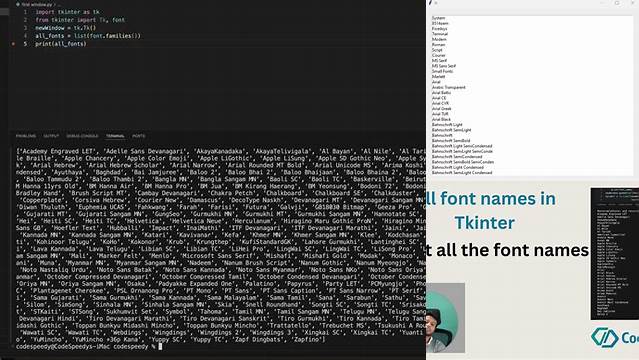
Tkinter Fonts: List, Use, And Customize For Your GUI
Hey guys! Ever wondered how to spice up your Tkinter applications with different fonts? You've come to the right place! In this comprehensive guide, we'll dive deep into the world of Tkinter fonts. We'll explore how to list all available fonts, how to use them, and even how to create your own custom font styles. So, buckle up and let's get started!
Why Fonts Matter in Tkinter
In Tkinter, fonts are super important for making your application look polished and professional. Choosing the right font can significantly impact the user experience, making your text more readable and visually appealing. Think about it: a sleek, modern font can give your app a contemporary feel, while a classic font might lend a touch of elegance. Plus, fonts play a huge role in branding and can help reinforce your app's identity. By understanding how to use fonts effectively, you can take your Tkinter projects from basic to brilliant.
The Impact of Font Choice on User Experience
The font you select in your Tkinter application isn't just about aesthetics; it profoundly affects how users interact with your interface. Readability is key – a clear, easily legible font ensures users can quickly grasp the information presented. Imagine trying to read a dense block of text in a highly stylized, difficult-to-decipher font. Frustrating, right? A good font choice minimizes eye strain and improves comprehension. Furthermore, the font's style can set the tone for your application. A playful, informal font might be perfect for a children's game, whereas a more serious, professional font would be better suited for a business application. The consistency in font usage throughout your application creates a cohesive and polished look, enhancing the user's overall experience. Experimenting with different fonts and understanding their impact can significantly elevate your UI design.
Fonts and Branding: Creating a Unique Identity
Your choice of font can also play a pivotal role in establishing your application's brand identity. Think of well-known brands – many have a signature font that's instantly recognizable. Using a consistent font throughout your Tkinter application helps create a cohesive visual identity, making your app stand out. For example, a bold, modern sans-serif font might convey innovation and cutting-edge technology, while a classic serif font could suggest tradition and reliability. When choosing fonts, consider your target audience and the message you want to convey. A carefully selected font can reinforce your brand's personality and make a lasting impression on users. Remember, branding isn't just about logos and colors; it's also about the subtle details like typography that contribute to your application's overall image.
Accessibility Considerations for Font Selection
When selecting fonts for your Tkinter application, it's vital to consider accessibility. Not all users have the same visual capabilities, and choosing an appropriate font can make your application more inclusive. A good starting point is to opt for fonts with clear, well-defined letterforms and sufficient spacing. Avoid overly stylized or decorative fonts that may be difficult to read, especially for users with visual impairments. Providing options for users to adjust font size and color can further enhance accessibility. High contrast between text and background is also crucial for readability. Tools and libraries are available to help you test the contrast ratio of your color schemes, ensuring they meet accessibility standards. By prioritizing accessibility in your font choices, you create a more user-friendly experience for everyone.
Listing All Available Fonts in Tkinter
Okay, let's get to the fun part: listing all the fonts Tkinter has at its disposal! Tkinter provides a handy way to access this information, so you can see what options are available. This is super useful when you're trying to find the perfect font for your application. We'll walk through the code step-by-step, so you'll be a font-listing pro in no time.
Using font_families() to Discover Fonts
The primary method for discovering fonts in Tkinter is the font_families() function, which is part of the font module. This function returns a tuple containing the names of all available font families on your system. To use it, you'll first need to import the tkinter and tkinter.font modules. Then, you can call font.families() to get the list. It's as simple as that! This method is essential for exploring the typographic landscape available to your Tkinter application. You can then iterate through this list, previewing each font to see how it looks in your UI. The font_families() function is your gateway to a world of typographic possibilities in Tkinter.
Code Example: Displaying Fonts in a Tkinter Window
To take things a step further, let's create a Tkinter window that displays all the available fonts. This is a practical way to visually explore your font options. We'll create a listbox widget to show the font names, making it easy to scroll through and see what's available. Each item in the listbox will display the font name, so you can see how it looks in real-time. This hands-on approach will give you a much better sense of the typographic possibilities within Tkinter. By building this simple font viewer, you'll gain a deeper understanding of how to work with fonts in your Tkinter applications.
Understanding Font Family Names
When you list fonts in Tkinter, you'll notice that font family names can sometimes be a bit cryptic. It's important to understand how these names correspond to the actual fonts. A font family is a group of fonts that share a similar design but may vary in weight, style, and size. For instance, "Arial" is a font family, and variations like "Arial Bold" or "Arial Italic" belong to the same family. Tkinter uses these family names as a base for specifying font styles. When you create a font object, you can specify the family name along with other attributes like size, weight, and slant. Understanding the structure of font family names allows you to make precise font selections in your Tkinter applications, ensuring consistency and visual appeal. It's like learning the secret language of typography!
So there you have it, guys! A deep dive into the world of Tkinter fonts. We've covered how to list them, use them, and even troubleshoot common issues. By mastering fonts in Tkinter, you can create visually stunning and user-friendly applications. Remember, the right font can make all the difference! Keep experimenting, and have fun creating beautiful UIs!